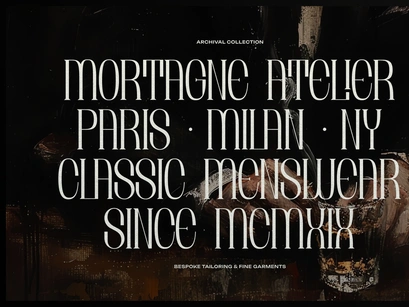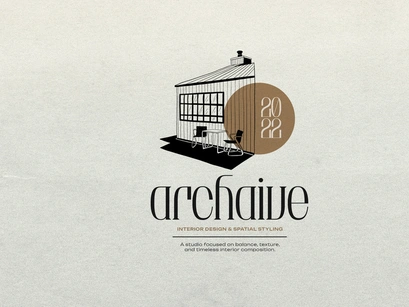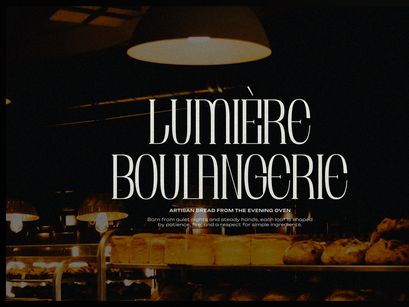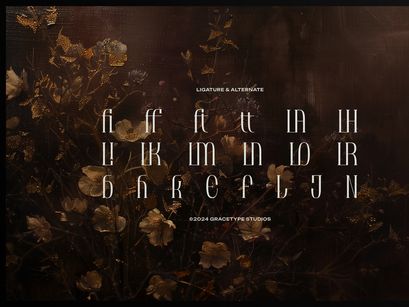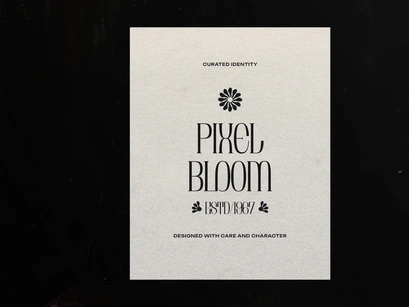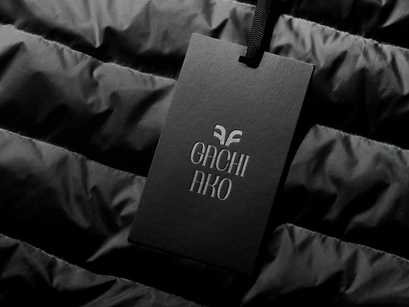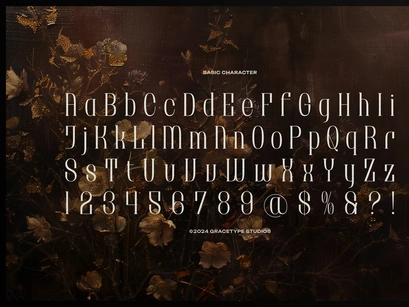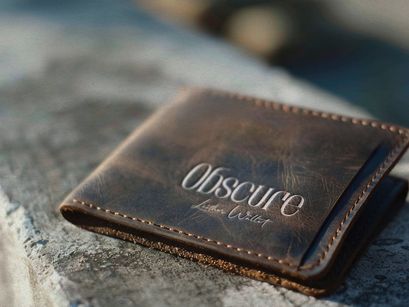
Brunelis Noctelle | Display Serif Font, from Gracetypestudio, suitable for any projects such as: logos, branding projects, homeware designs, product packaging, mugs, quotes, posters, shopping bags, t-shirts, book covers, name card, invitation cards, greeting cards, label, photography, watermark, special events, and all your other lovely projects that need a Serif taste.